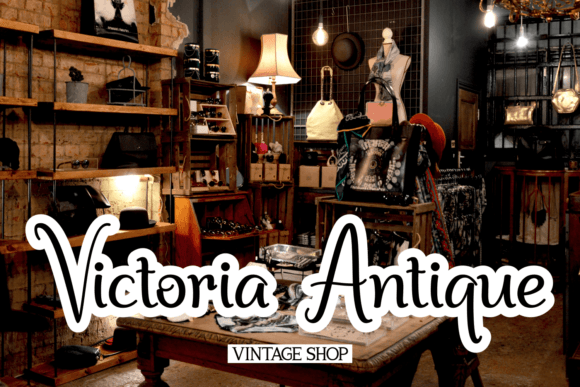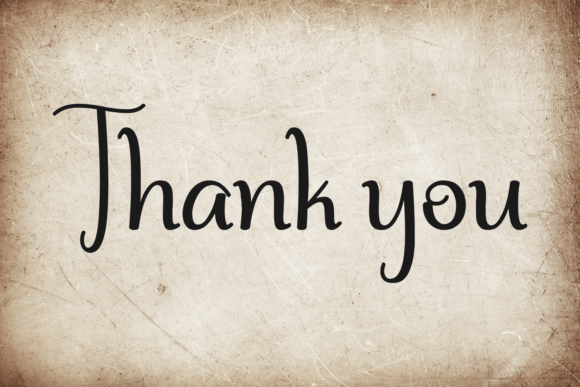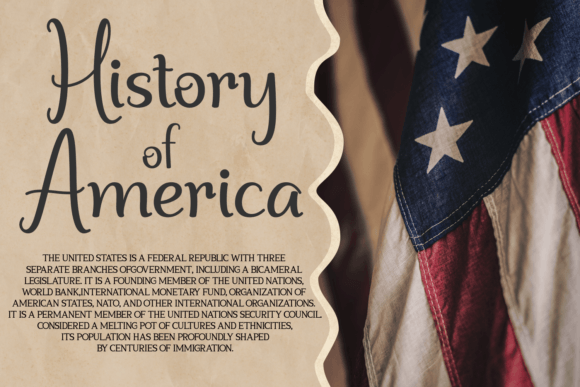
Jayden Font
About Jayden Font
“Jayden” is a distinctive handwritten font that effortlessly combines clear characters with a vintage flair, creating a unique and stylish typographic experience. Designed to be both stylish and easy to read, “Jayden” is an excellent choice for a wide range of creative projects.
The clear and legible characters of “Jayden” make it versatile, allowing it to shine in various design contexts. Whether you’re working on branding, packaging, posters, invitations, or any other creative endeavor, this font is crafted to leave a lasting impression.
The vintage flair in “Jayden” adds a touch of classic charm, making it suitable for projects that aim to evoke a sense of nostalgia or timeless elegance. This combination of readability and vintage style ensures that “Jayden” stands out as a font that is not only visually appealing but also adaptable to different design aesthetics.
Whether you’re crafting a logo, designing a poster, or working on any creative project, “Jayden” brings a unique and handcrafted touch that enhances the overall visual appeal. Its versatility makes it a valuable asset for designers looking to infuse a vintage charm into their work while maintaining readability.
In summary, “Jayden” is more than just a font; it’s a versatile and unique tool that impresses with its clear characters and vintage flair. Let “Jayden” be the element that elevates your next creative project, making it stylish, easy to read, and infused with a touch of timeless charm.